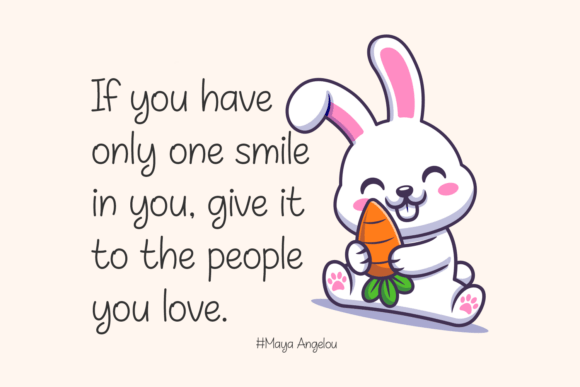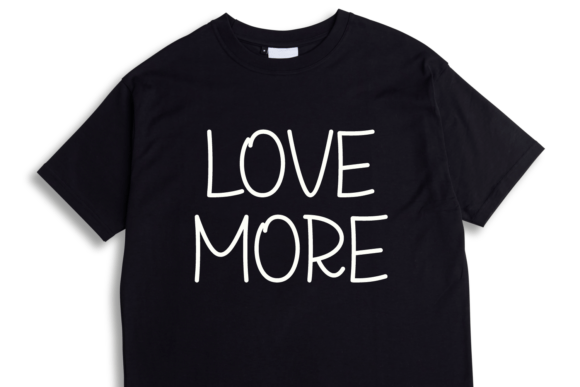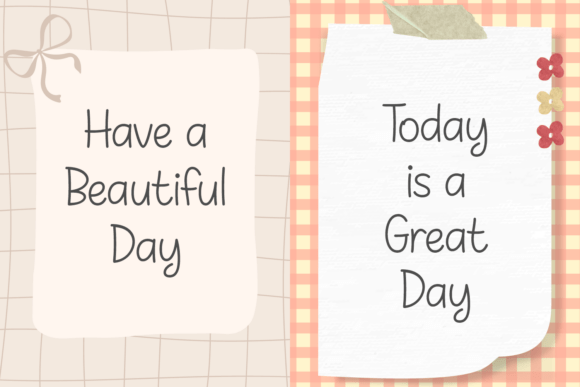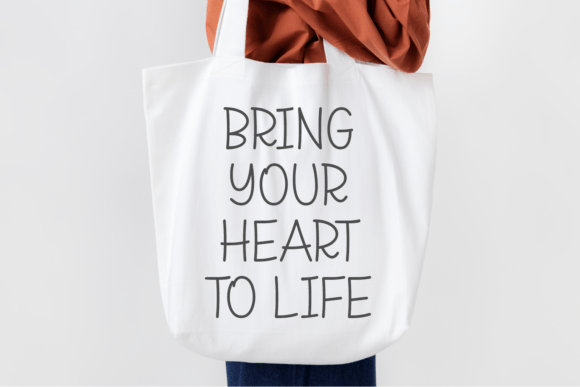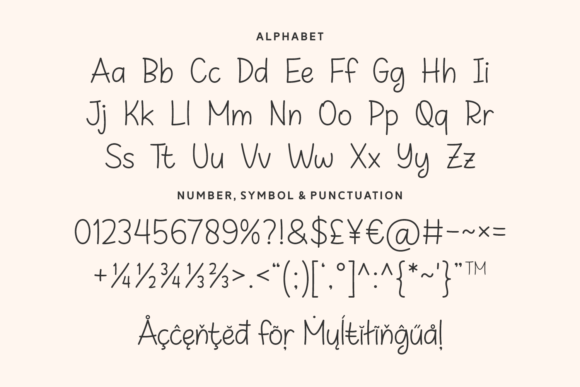
Introduction to Handshake Agreement Font
Have you ever stumbled upon a font that instantly makes you want to create something beautiful? For designers, that moment can be a game-changer. It’s the spark that sets off a chain of creative ideas, and for many, it’s the Handshake Agreement Font that ignites that passion. This quirky and minimalistic handwritten font has a way of captivating audiences with its inviting and amiable personality, making it the perfect addition to any design project.
Whether you’re working on a high-quality design resource or a personal project, the Handshake Agreement Font is sure to bring a unique touch to your work. With its distinctive and playful loops, it’s perfect for making a statement, and its light and airy curves give it a whimsical look that’s perfect for crafts, digital design, and presentations.
Key Features of Handshake Agreement Font
- Unique characteristics include a modern and professional design aesthetic, making it perfect for formal agreements and contracts.
Honest Review: Handshake Agreement Font
As a designer, I was excited to try out the Handshake Agreement Font, a free download that promised to bring a high-quality touch to my creative projects. And, I must say, it does deliver. ✨ The font’s unique blend of modern and vintage elements makes it perfect for any design that needs a bit of personality.
One of the things that stands out about the Handshake Agreement Font is its versatility. It can be used for a wide range of projects, from business cards to wedding invitations, and it looks great in both digital and print formats. The font is also highly customizable, allowing you to adjust the size, color, and style to fit your design needs.
- High-quality design that looks great in digital and print formats
- Unique blend of modern and vintage elements
However, there are a few limitations to keep in mind. ⚠️ The font may not be suitable for projects that require a highly formal or corporate look, as it has a more casual, friendly feel. Additionally, the font may not be compatible with all operating systems or software.
Overall, I’m impressed with the Handshake Agreement Font and would definitely recommend it to other designers looking for a high-quality, creative design resource. With its unique style and versatility, it’s a great addition to any design toolkit.
The Handshake Agreement Font is ideal for use in business proposals, contracts, and agreements. It’s also perfect for creating a professional and high-quality logo, flyer, or social media graphic. Use the font to convey trust and professionalism in your design project.